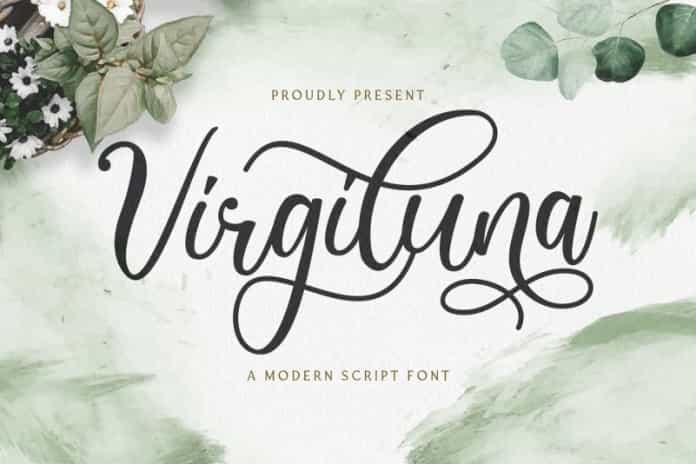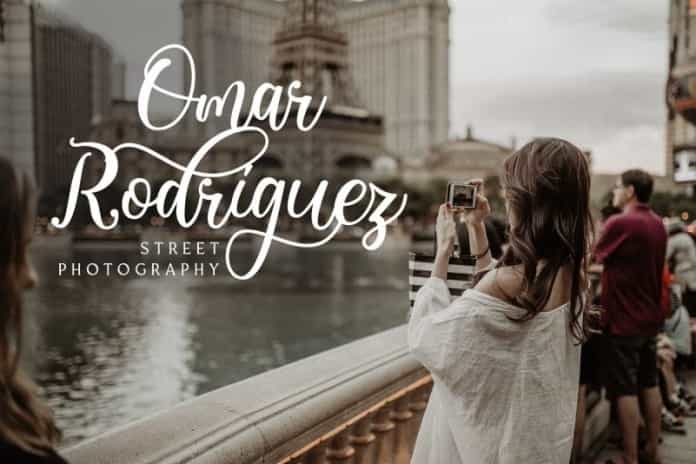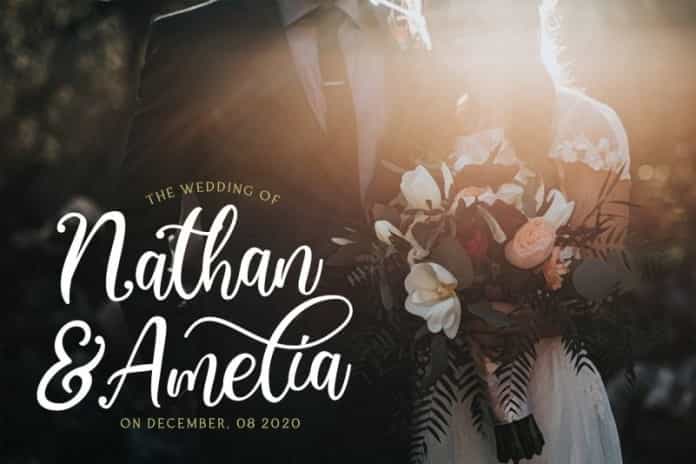
Virgiluna is a Calligraphic Script Font with Contemporary Handwriting Style. The Virgiluna font was made using a real handwriting brush pen. This font is great for the fashion brand, wedding invitation, business card, logo brand and so on. This Font Template is composed of Classy, Elegant, Creative, Cool and Unique Concept.